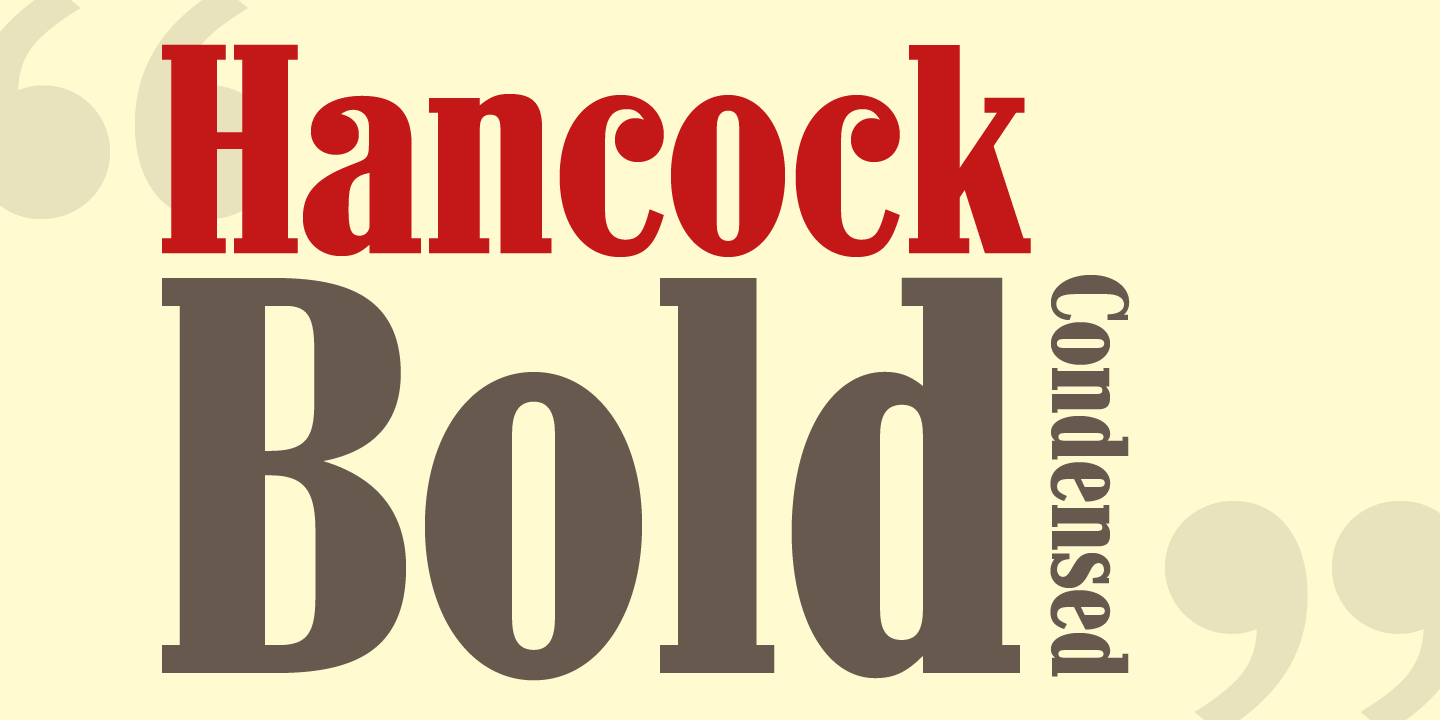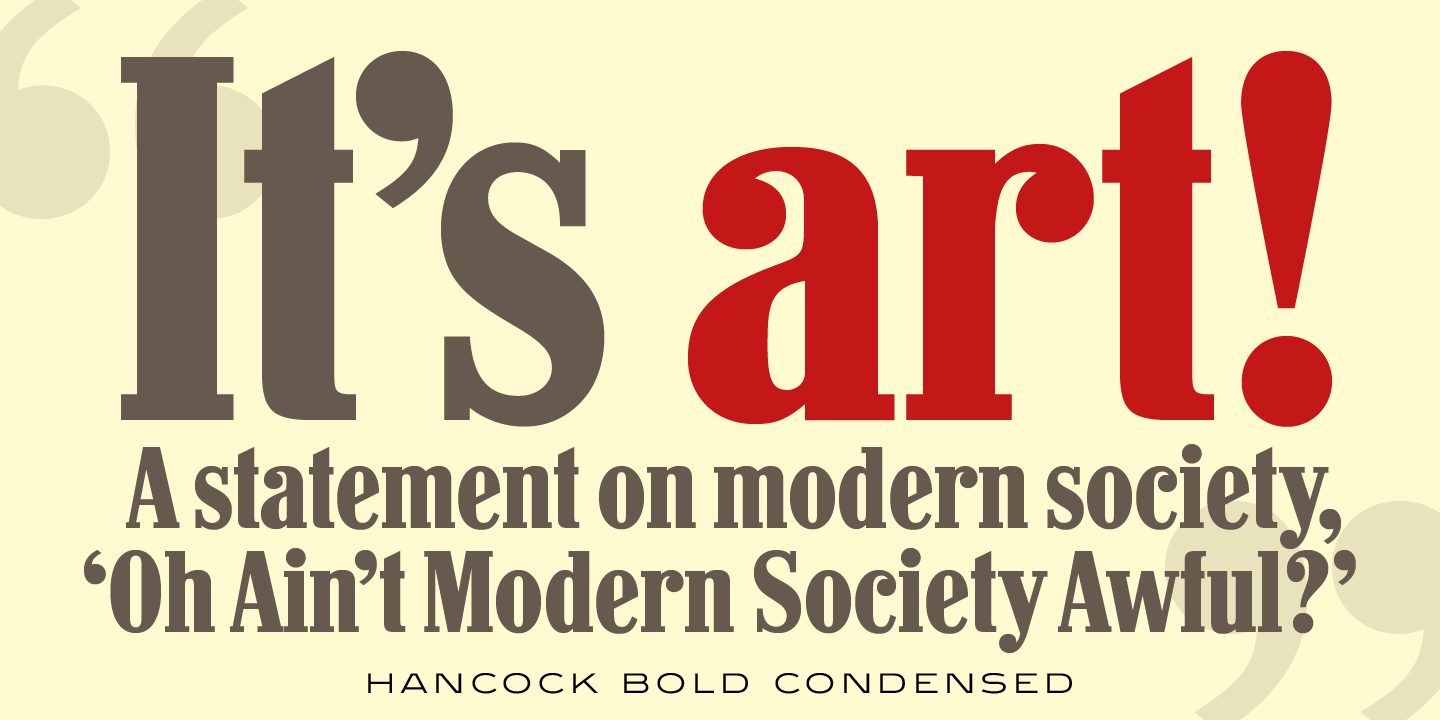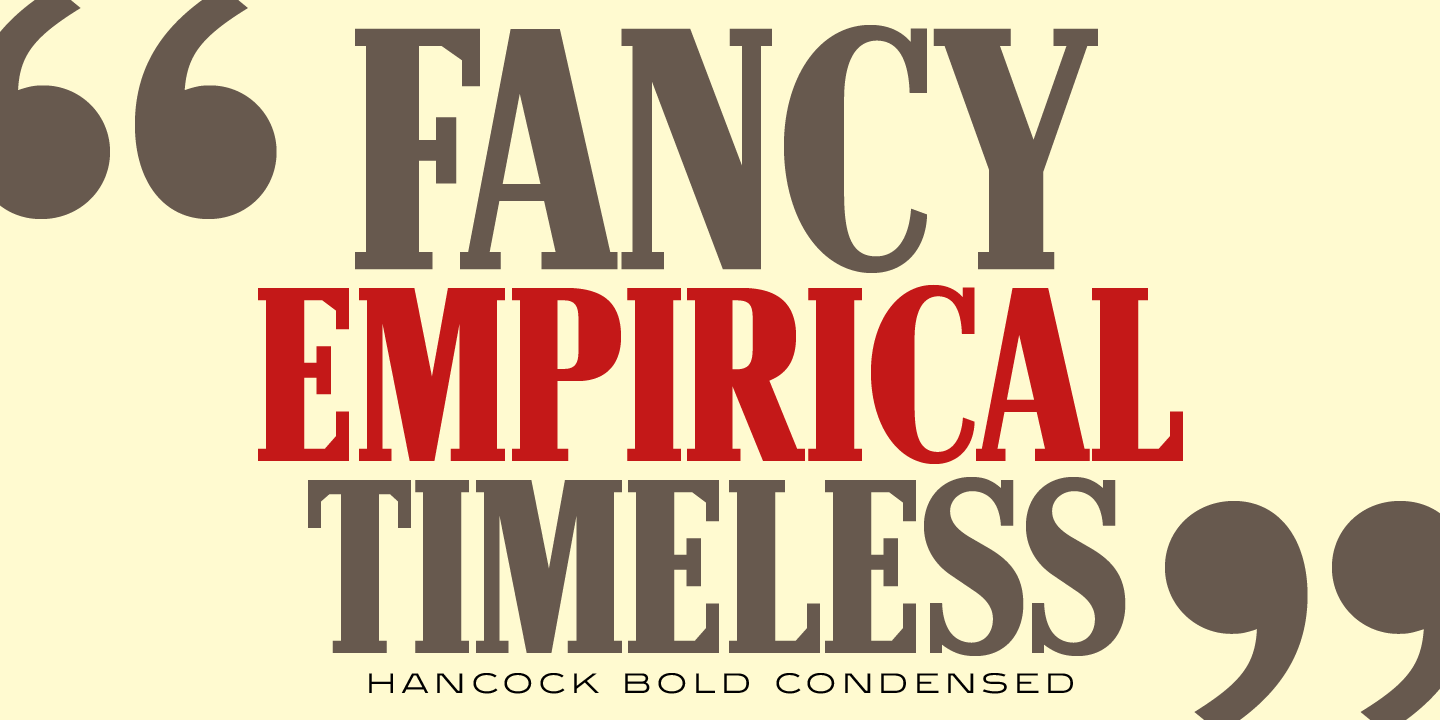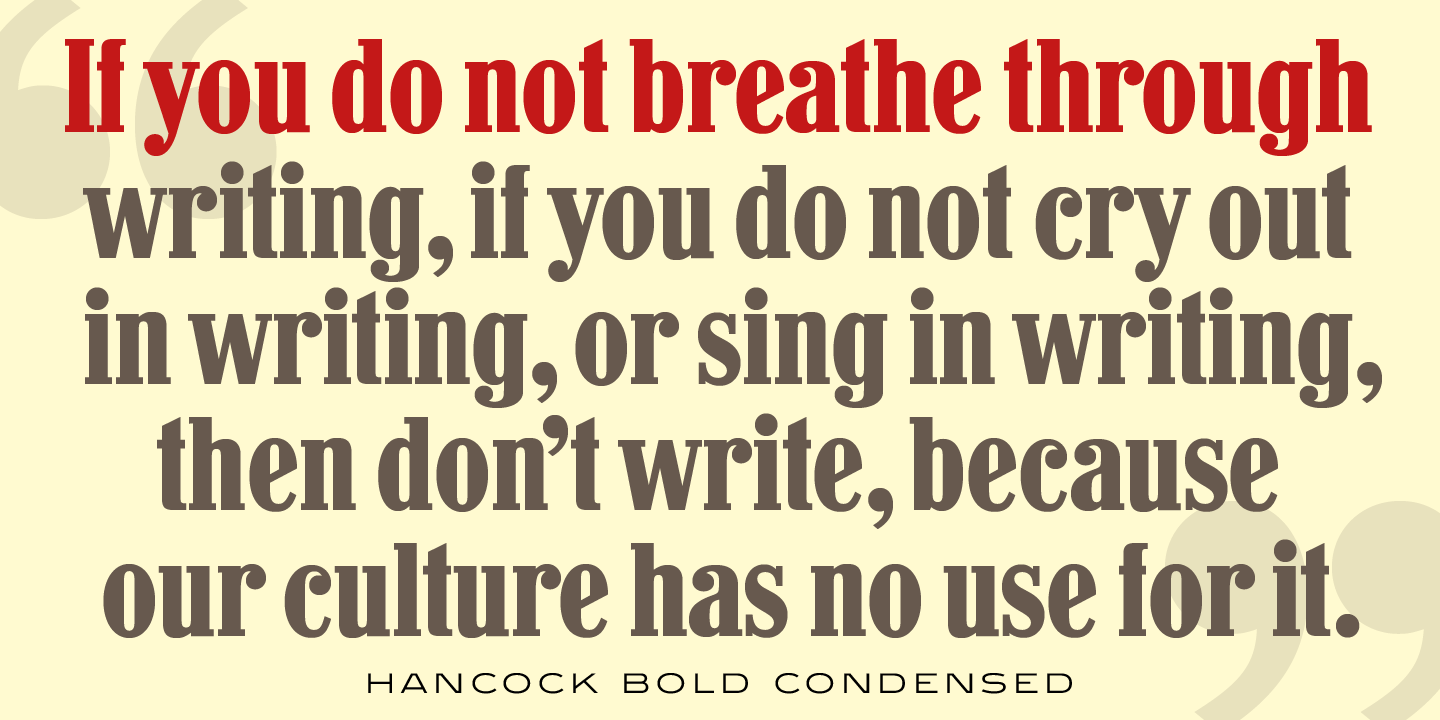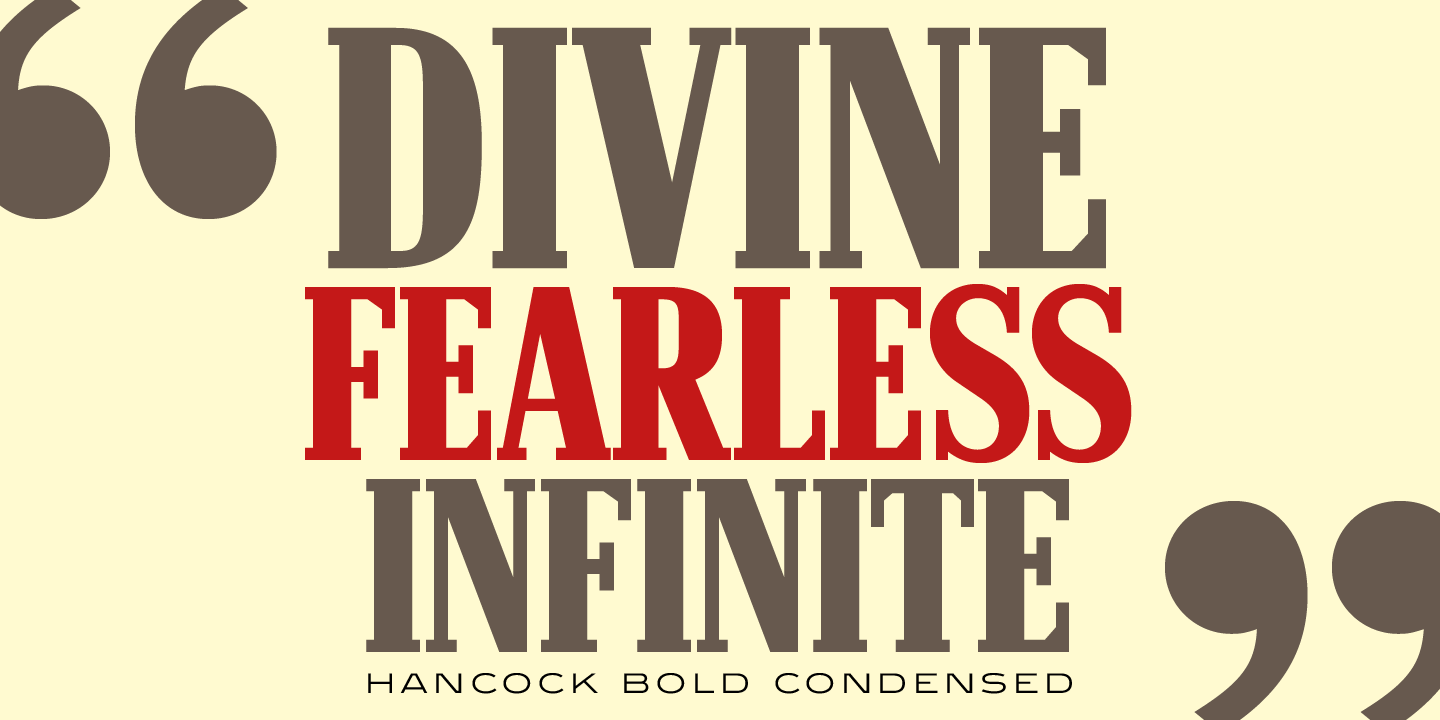
Hancock Font
Hancock Bold Condensed is slab serif typeface. The original Hancock design was produced by the Keystone Type Foundry, circa 1903; a condensed version was added circa 1917 by Lanston Monotype. Steve Jackaman (ITF) designed and produced a digital version of Hancock in 1994, and completely redrew the typeface for its 2017 release. The new version has a 40% larger glyph set, and supports Latin 1 plus Central/Eastern European languages.
• Czech
• Latvian
• Polish
• Slovak